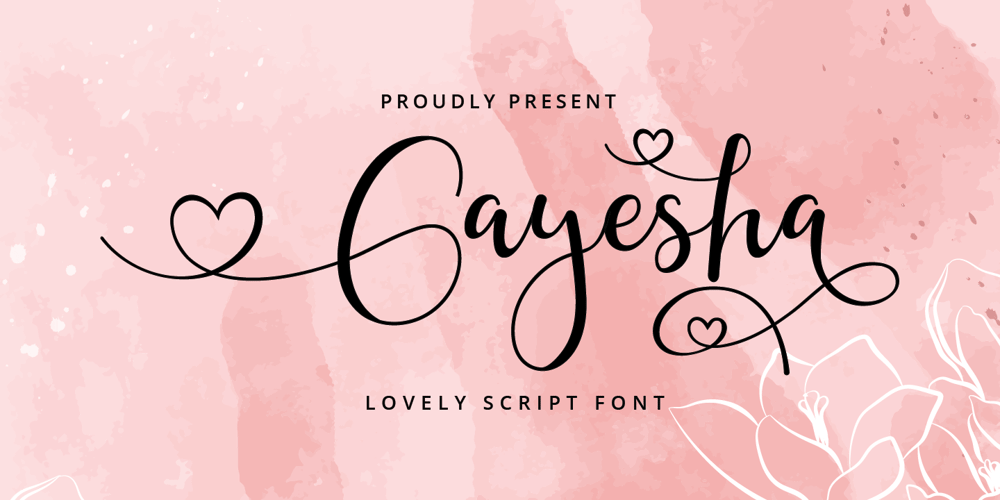
Gayesha
Gayesha font
Gayesha Font Family was designed by Putra Novembria Candra Kusuma and published by Putracetol. Gayesha contains 1 styles and family package options. Introducing a beautiful romantic script font called “Gayesha”, a lovely and sweet swirly letter font. So girly ,full of love and feminime.Come with open type feature with a lot of alternates and end swash, its help you to make great lettering.Gayesha best uses for heading,cover, poster, logos, quotes, product packaging, header, merchandise, social media & greeting cards and many more.This font is also support multi language.